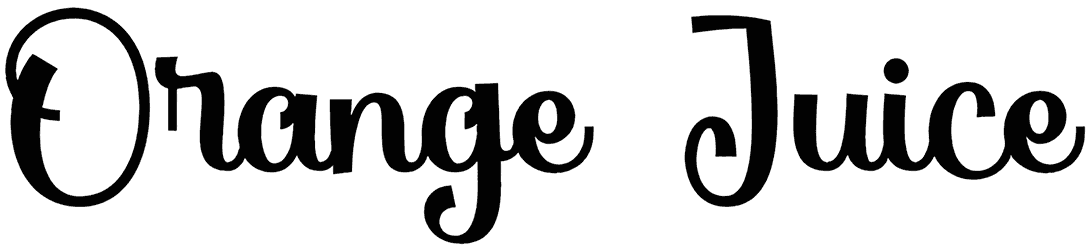
Orange Juice Font
With a playful and sweet outward, you can decorate your various designs and convey a happy vibe. This handwritten font, which is called Orange Juice, consists of swept brush letters, but it doesn’t have numbers and punctuation marks. Set this adorable script font on your intended designs from postcards to album covers, and create a delightful mood.